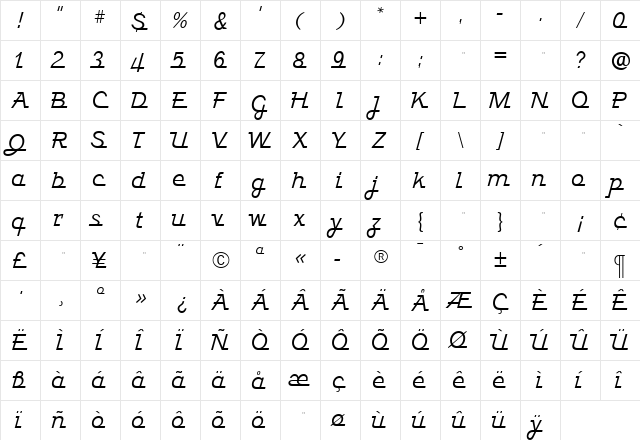
JavelinMedium Roman Font Preview
JavelinMedium Roman
Design Context for JavelinMedium Typeface
JavelinMedium is a composed and adaptable typeface that performs quietly and consistently across a wide range of design contexts.